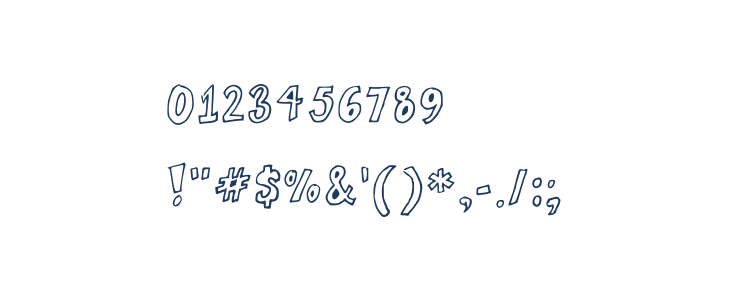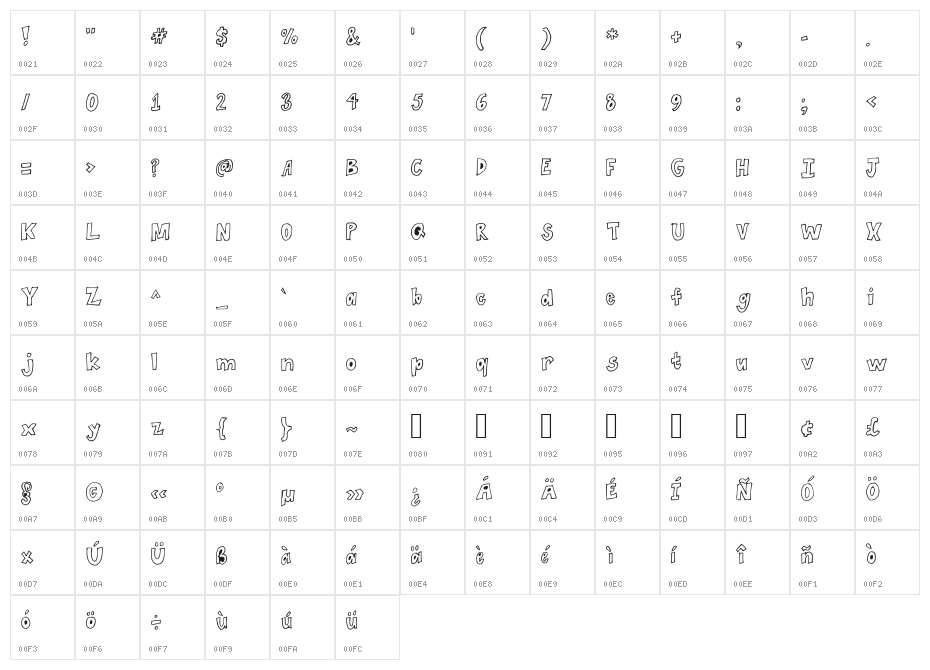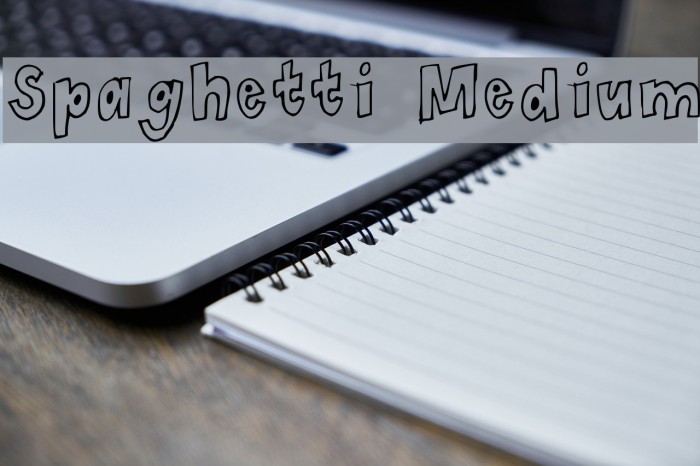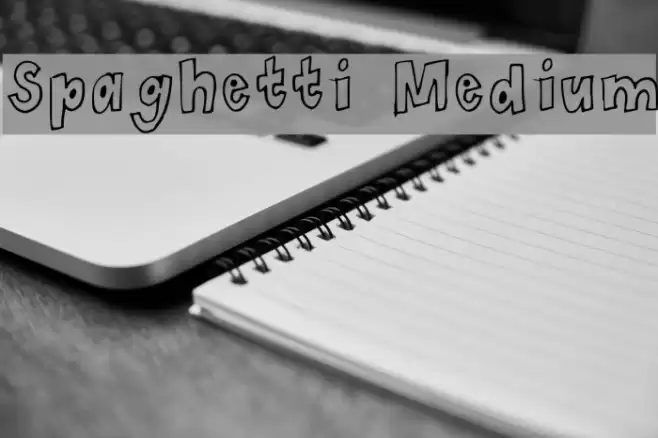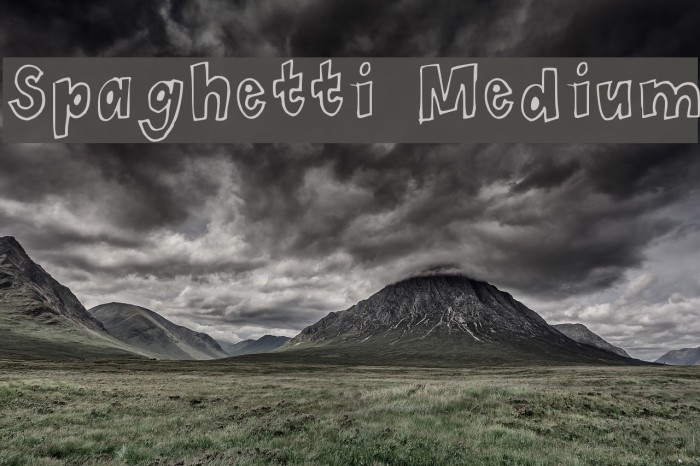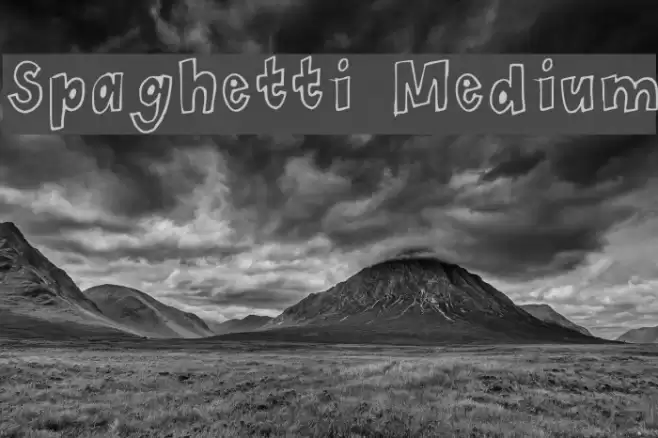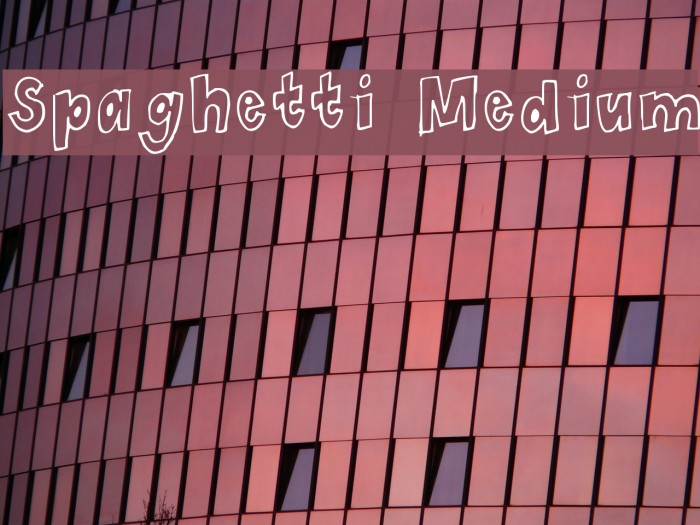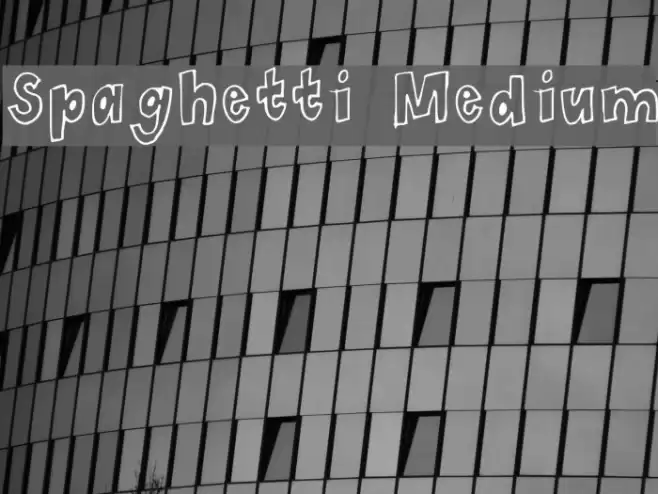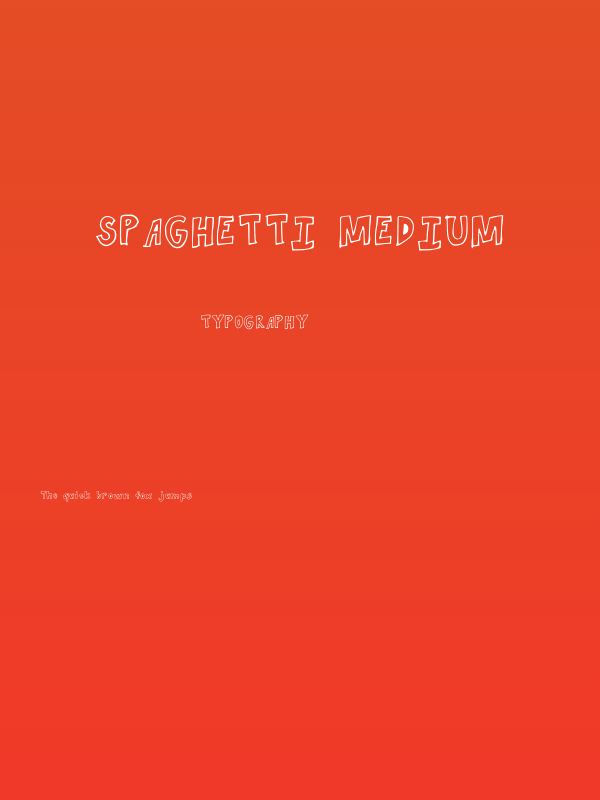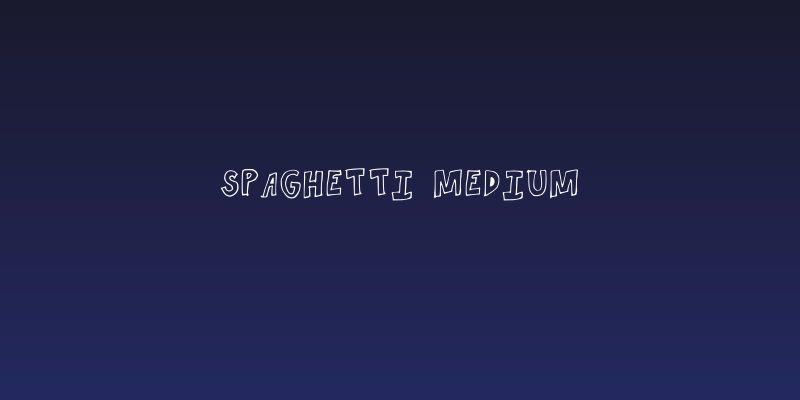
Spaghetti Medium Font
Spaghetti Medium Description
This playful and whimsical font features a hand-drawn, cartoonish style with uneven, wavy lines that give it a lively and informal appearance. The characters are bold and slightly irregular, adding a sense of fun and spontaneity. The uppercase and lowercase letters maintain a consistent style, with a slight tilt and varying stroke widths that enhance its casual feel. The numbers and special characters follow the same quirky design, making the font suitable for creative and lighthearted projects. Its unique personality makes it stand out, perfect for capturing attention in a fun and engaging way.
| Overall Style | Whimsical |
| Proposed Projects | Ideal for children's books, comic strips, playful branding, and party invitations. |